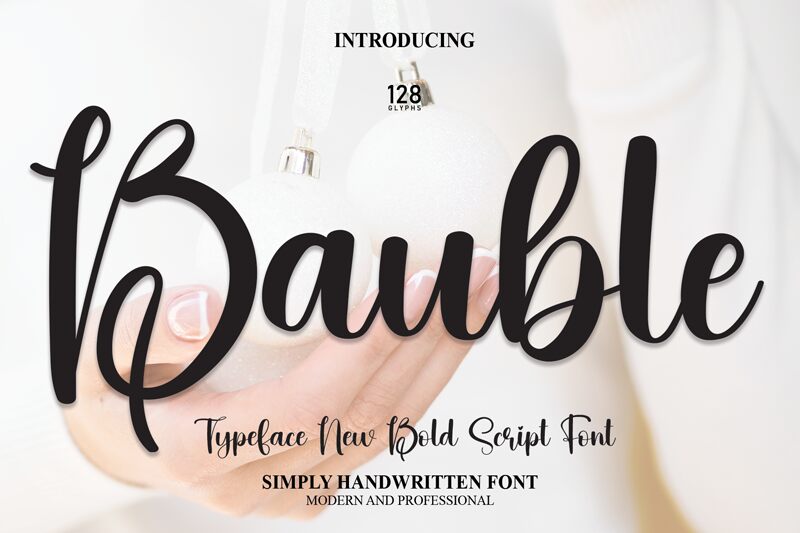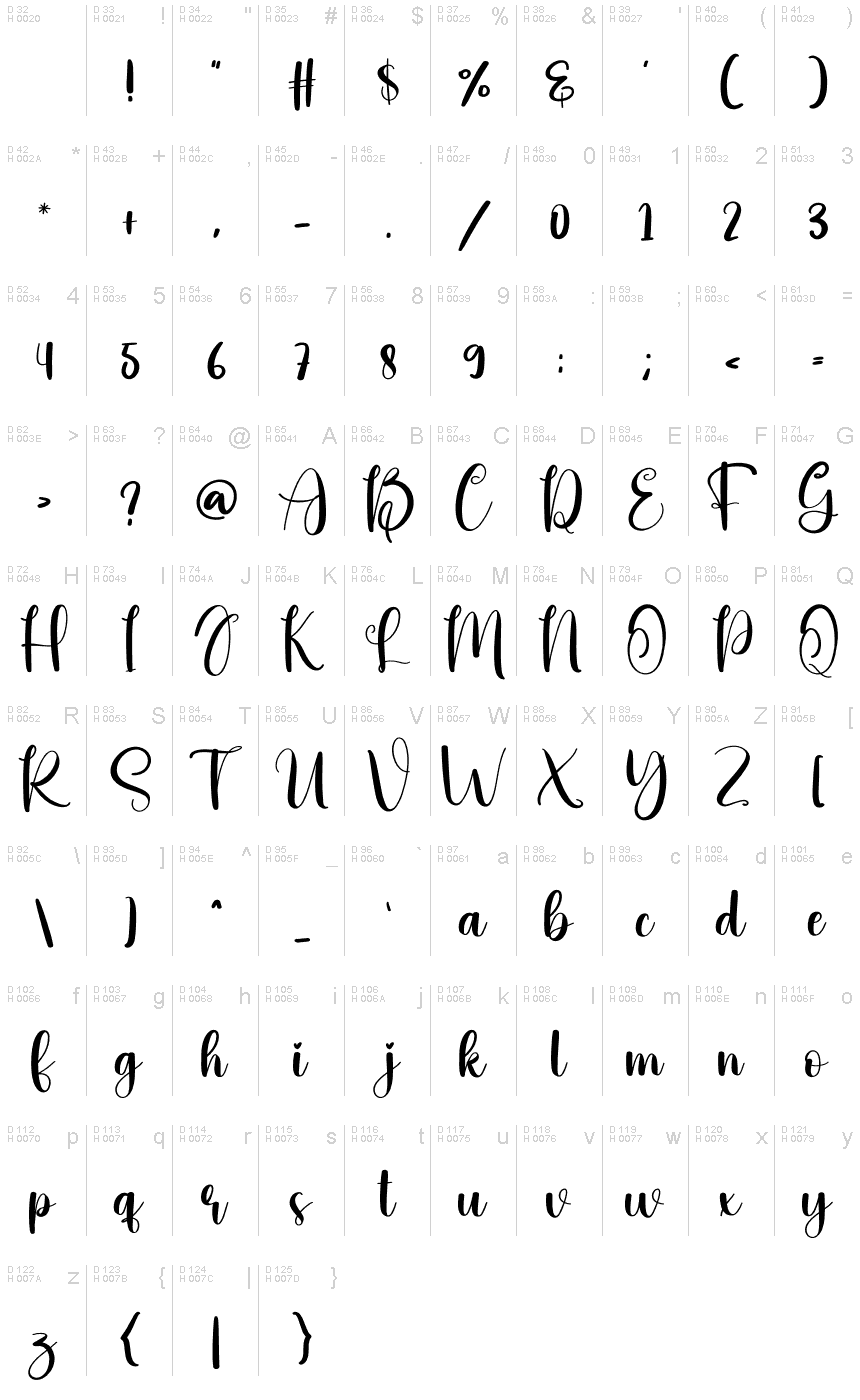
Bauble
Bauble, a distinctive creation by Scratchones, emerges as a calligraphy font that encapsulates the essence of handcrafted artistry. With its fluid strokes and varying line weights, Bauble exudes an elegance that could effortlessly elevate any design project. Its sweeping curves and organic flow lend it a natural charm that is both aesthetically pleasing and visually engaging.
The font's calligraphic style imbues it with a sense of sophistication and personal touch, making it particularly suitable for invitations, branding materials, and artistic compositions where a human touch is desired. The graceful nature of Bauble allows for its versatile use in both digital and print mediums—its readability ensures clarity in smaller sizes while its artistic flair stands out in larger displays.
Whether employed to add a touch of finesse to logos or to infuse warmth into editorial layouts, Bauble offers designers an exquisite tool for crafting messages with character and distinction.